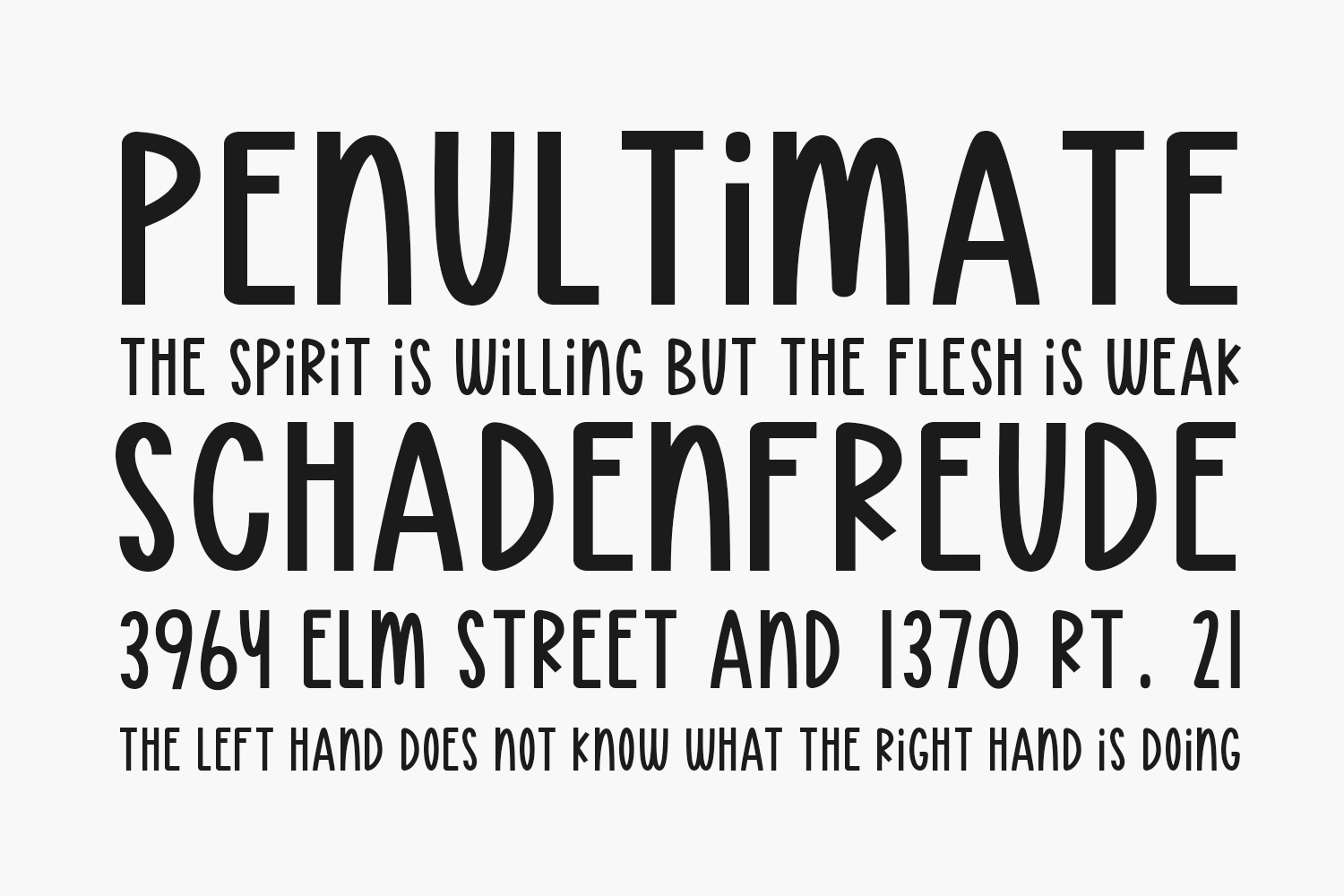
Diary Display Free Font is an enchanting handwritten font. This versatile script font has a wide spectrum of applications ranging from greeting cards to headlines and is guaranteed to add a romantic feel to your next project.